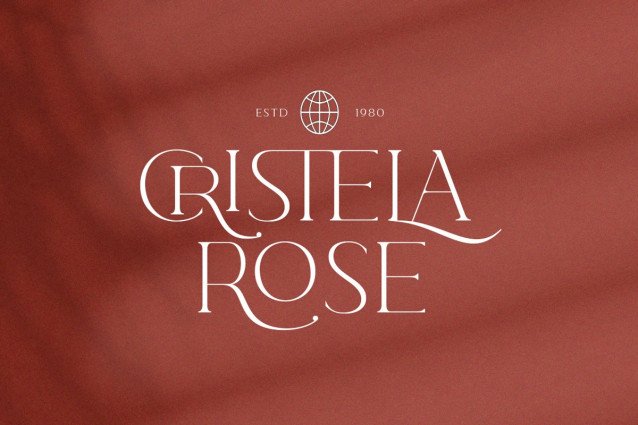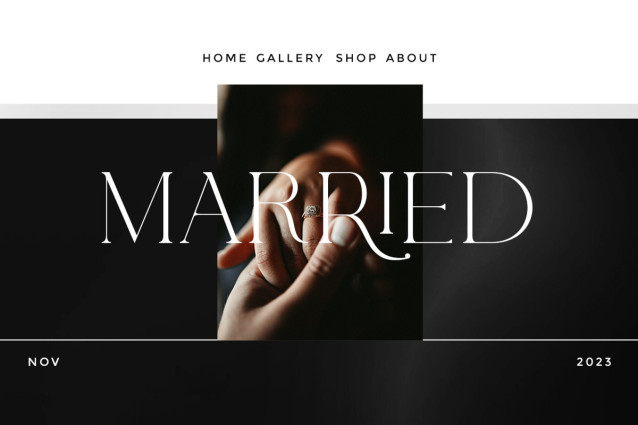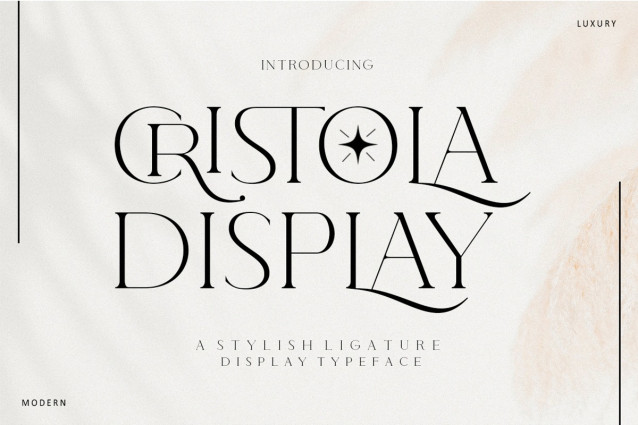
Cristola Display Font
Cristola Display Font is a sophisticated ligature serif from us. This typeface has been made carefully to make sure its premium quality and luxury feel. The ligatures makes this typeface unique and stands out rather than the regular serif font. Very suitable for logo, headline, tittle, and the other various formal forms such as invitations, labels, logos, magazines, books, greeting / wedding cards, packaging, fashion, make up, stationery, novels, labels or any type of advertising purpose.